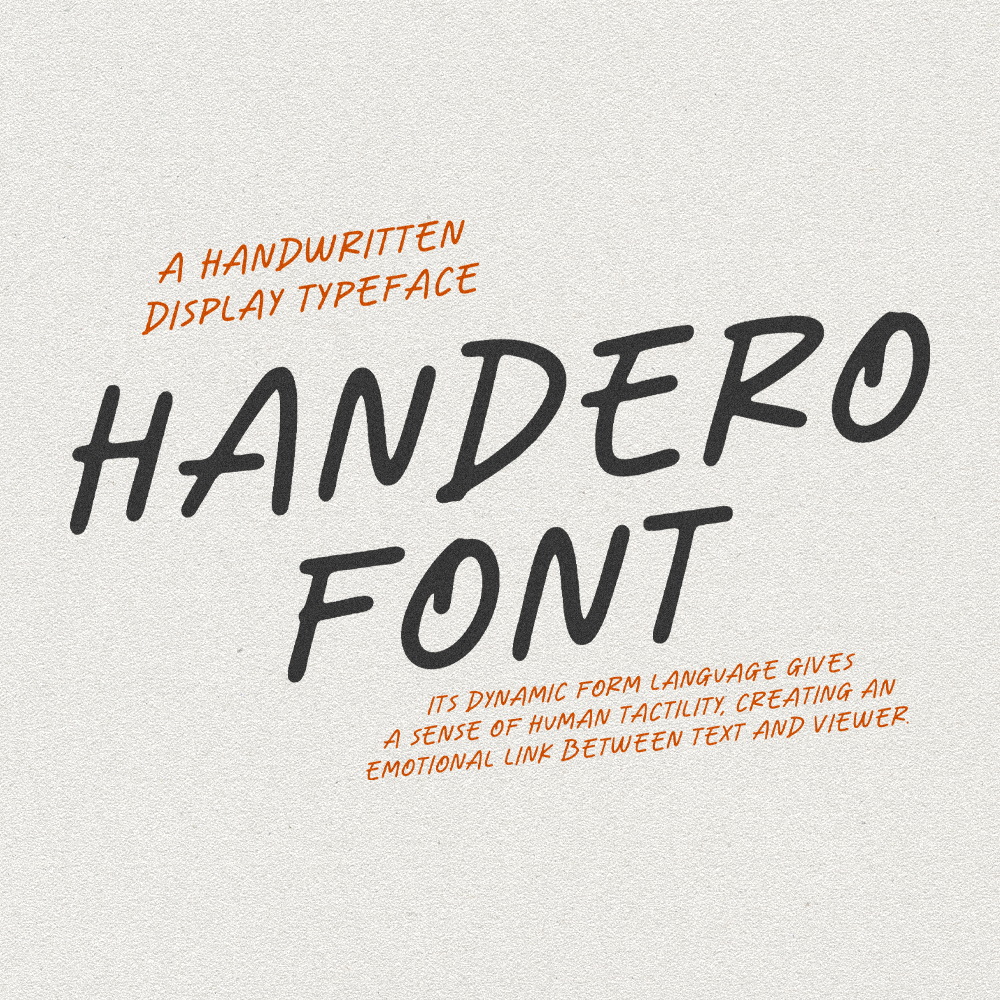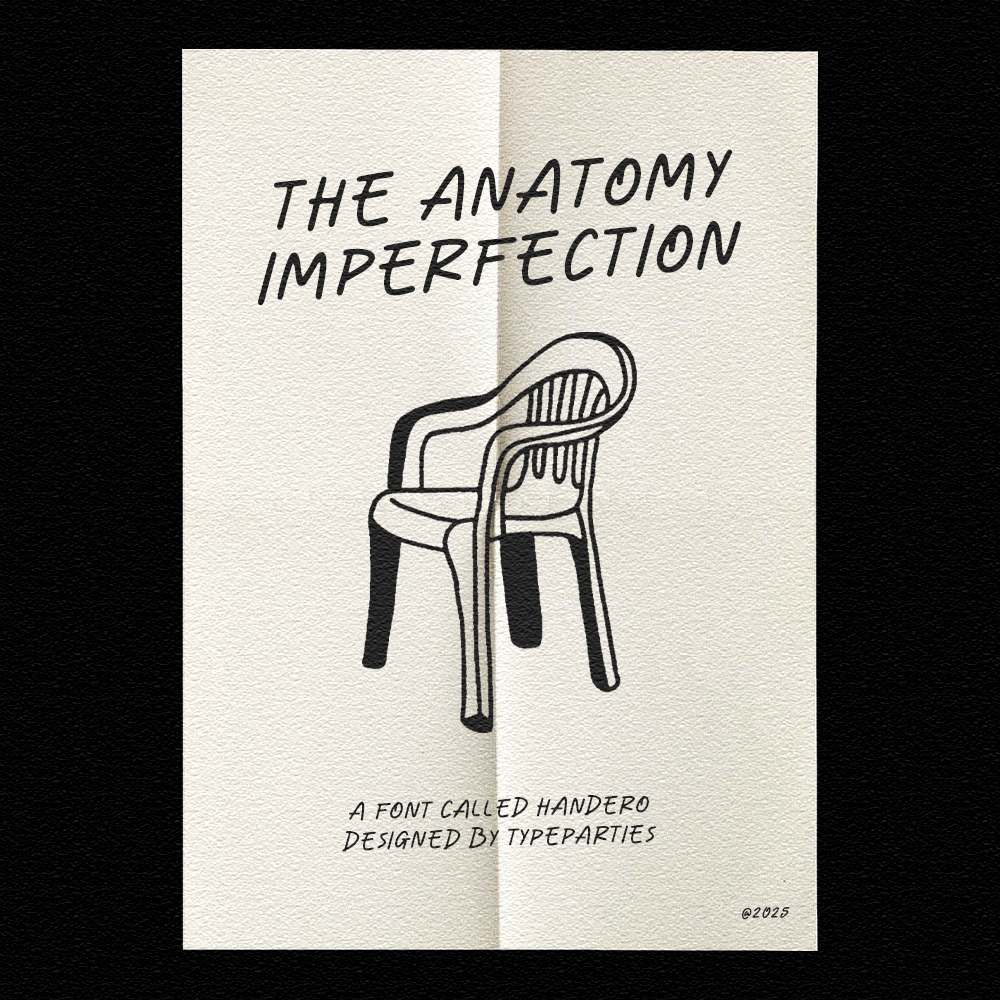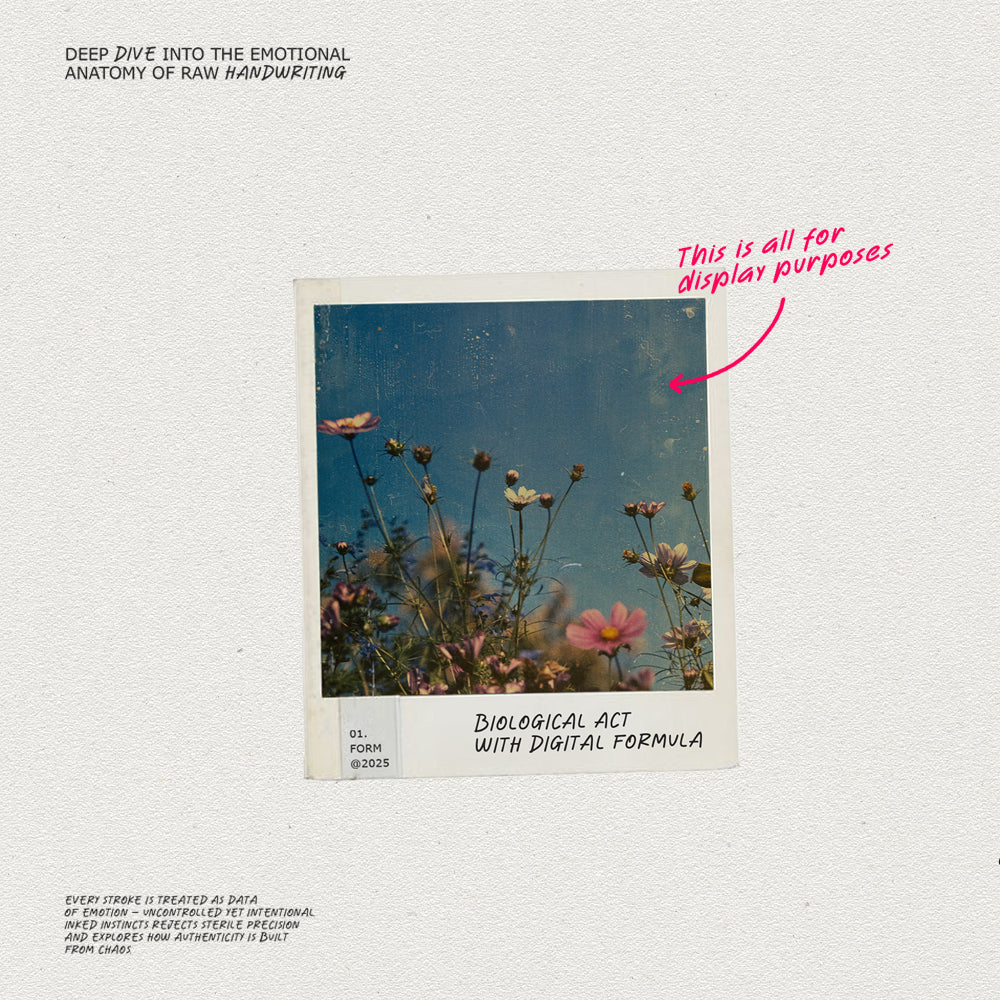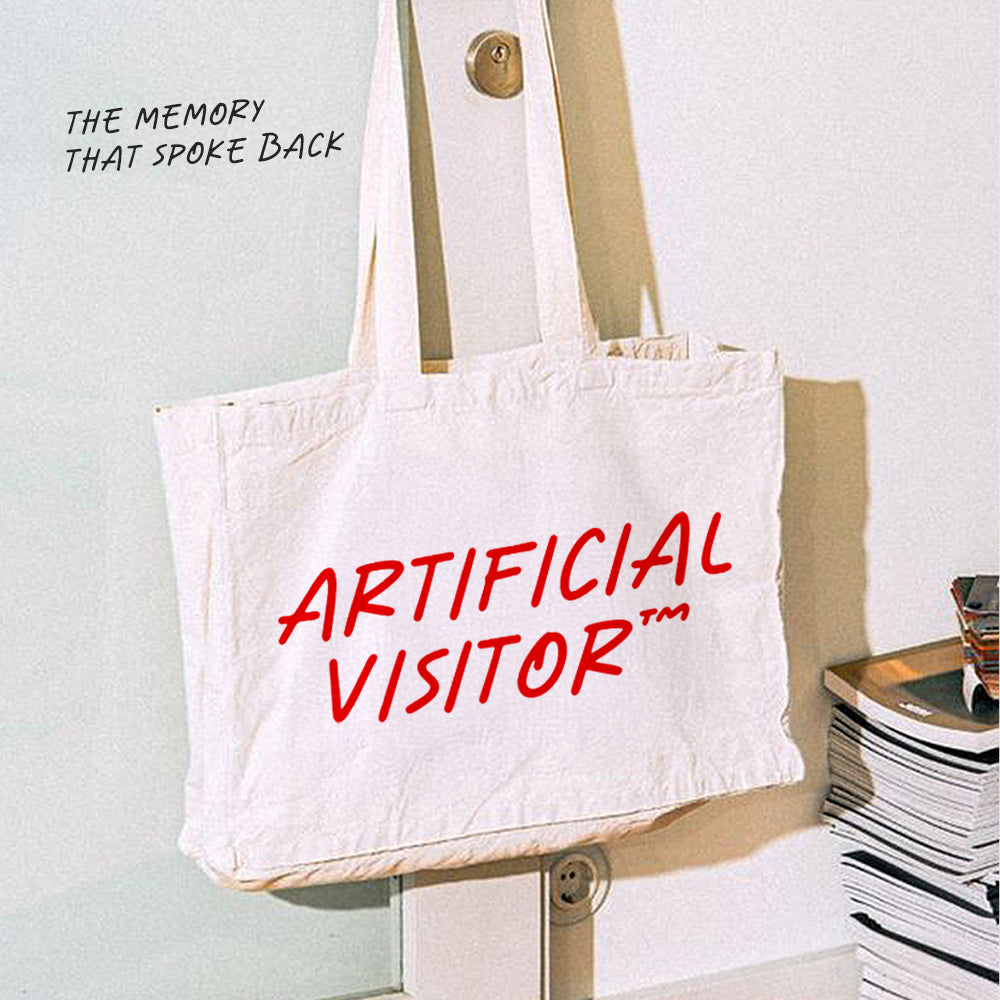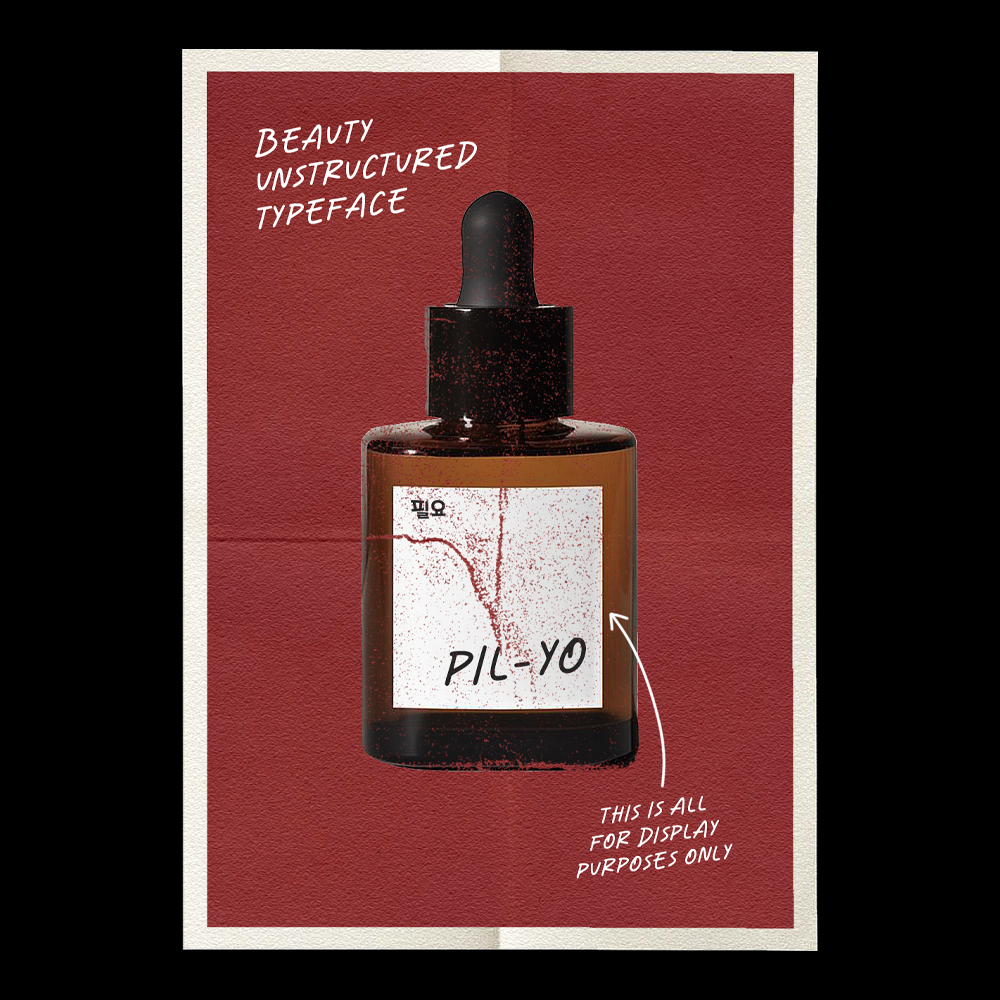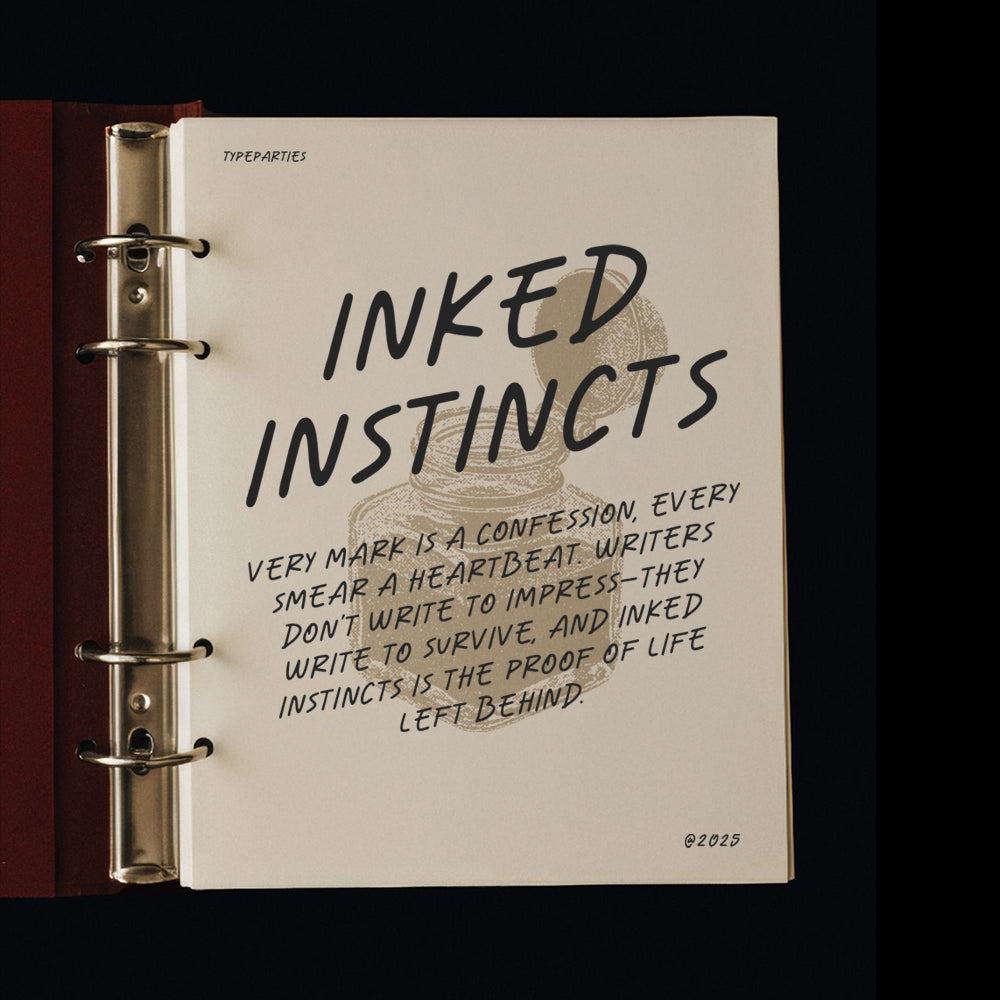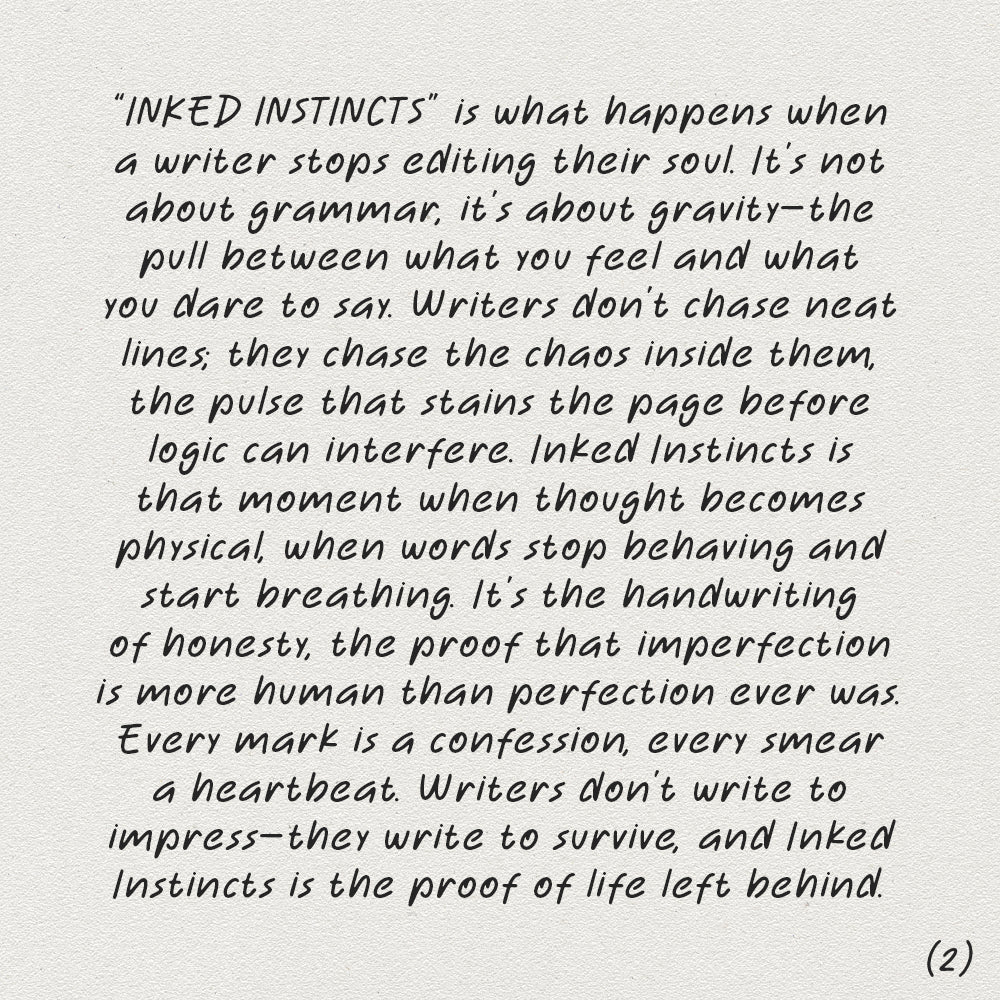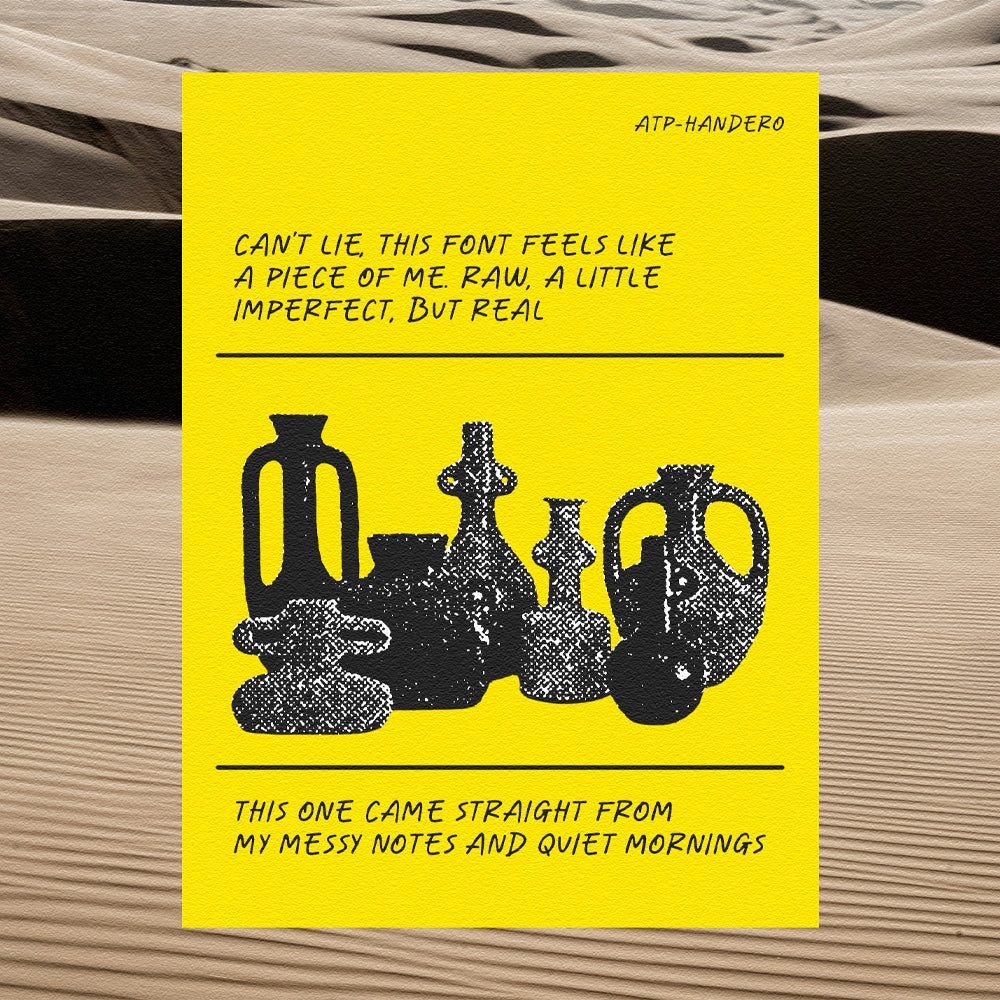
Handero - Handwritten Display Font
Handero is a handwritten display font available in .otf and .ttf formats, featuring uppercase and lowercase letters, numerics, punctuation, and multilingual support. Its design reflects a raw, spontaneous handwritten style.